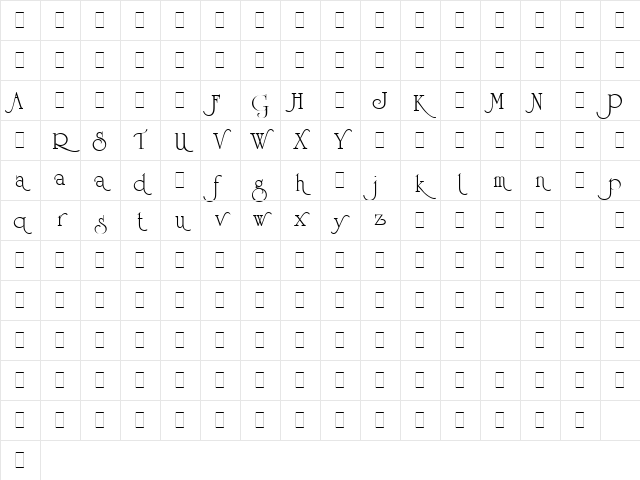
University Roman Alts LET Plain Free Font
University Roman Alts LET Plain
Design Context for University Roman Alts LET
University Roman Alts LET is a composed and adaptable typeface that performs quietly and consistently across a wide range of design contexts.